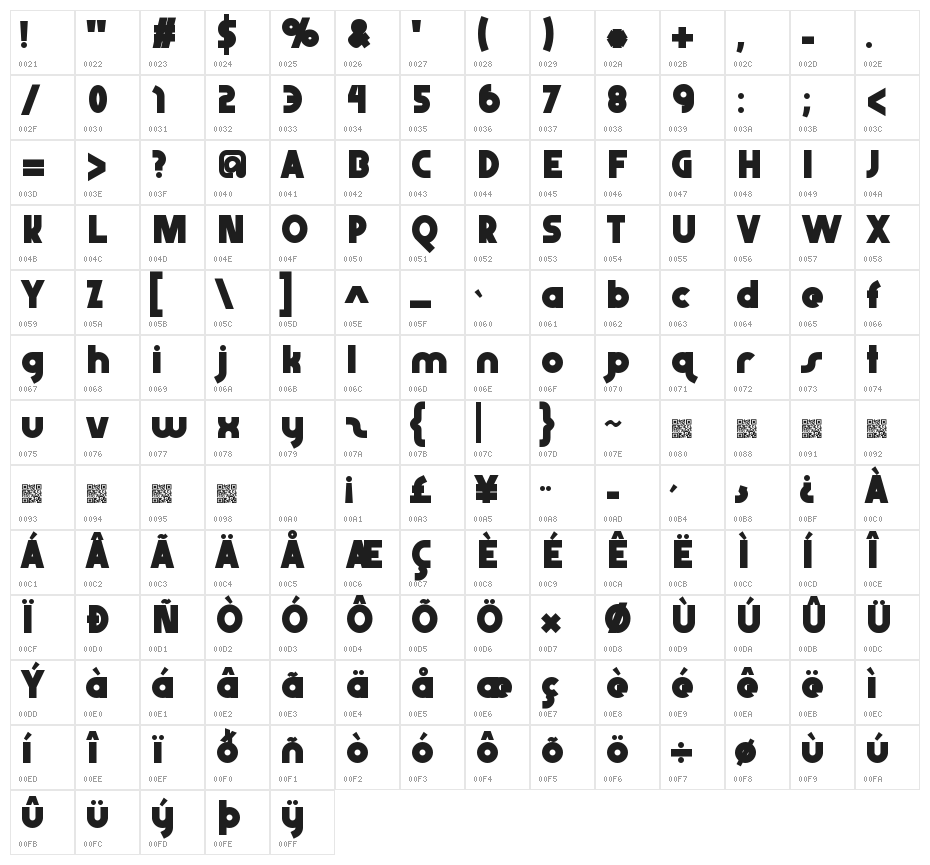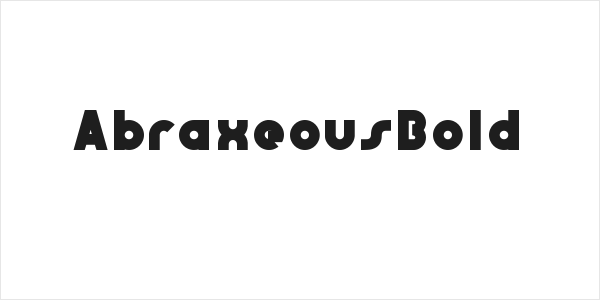
AbraxeousBold Font
AbraxeousBold Description
This font features a bold and striking design with thick, uniform strokes that create a strong visual impact. The characters are geometric and angular, with a unique style that incorporates sharp edges and a slightly condensed appearance. The uppercase letters are particularly prominent, while the lowercase letters maintain a consistent weight and style. Numbers and special characters follow the same bold and distinctive design, ensuring a cohesive look across all text elements. This font's boldness and unique character shapes make it ideal for attention-grabbing designs.
| Proposed Projects | Ideal for posters, headlines, branding, and any design requiring a strong visual impact. |